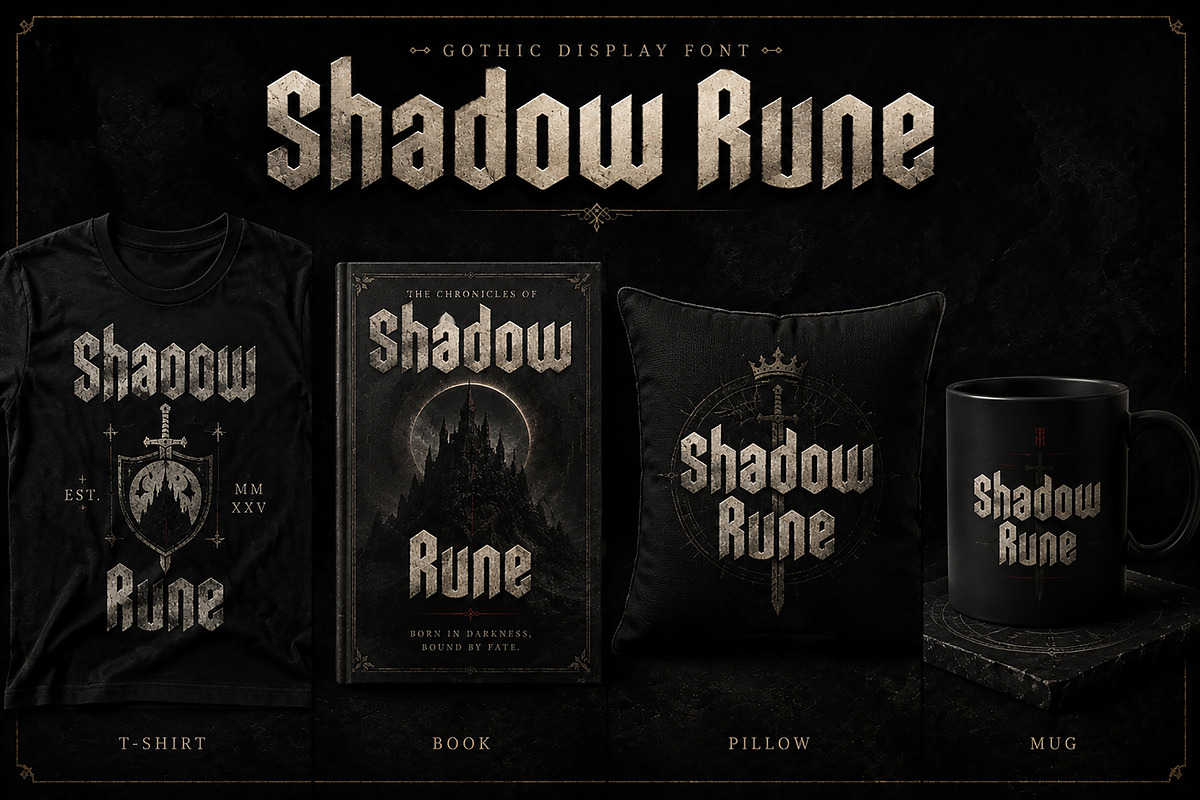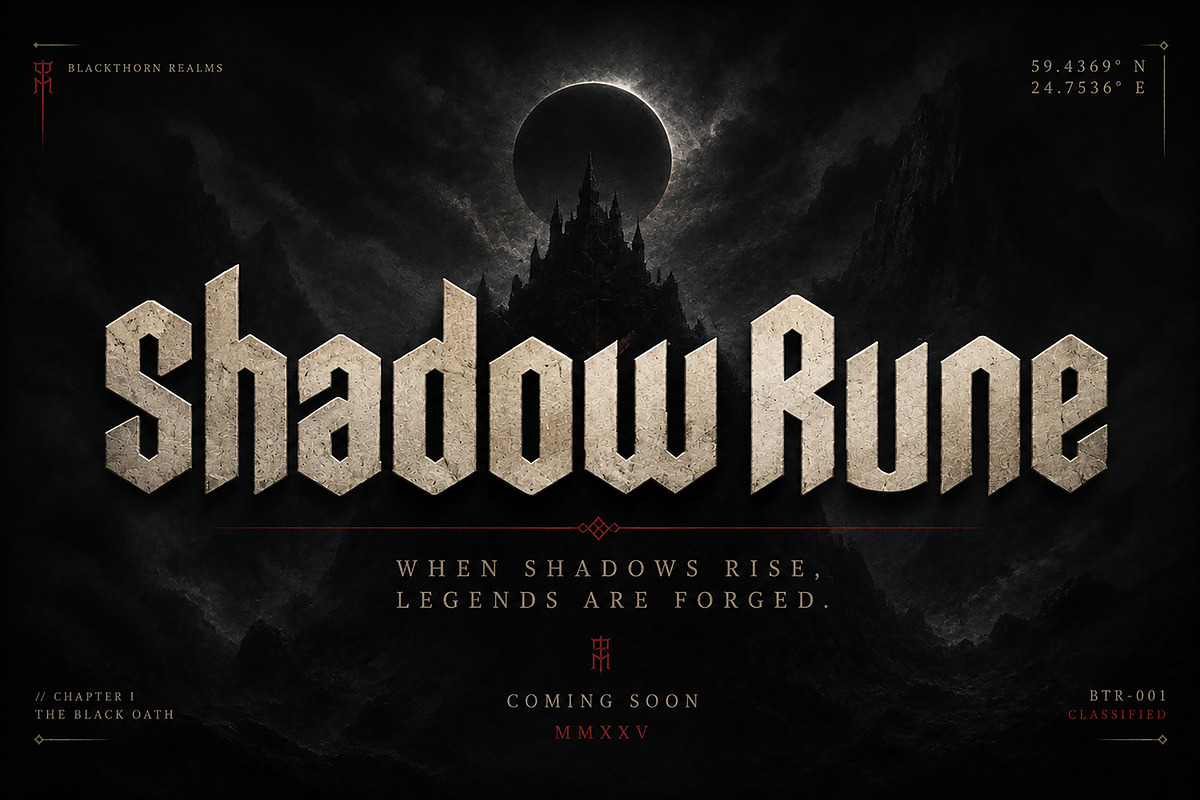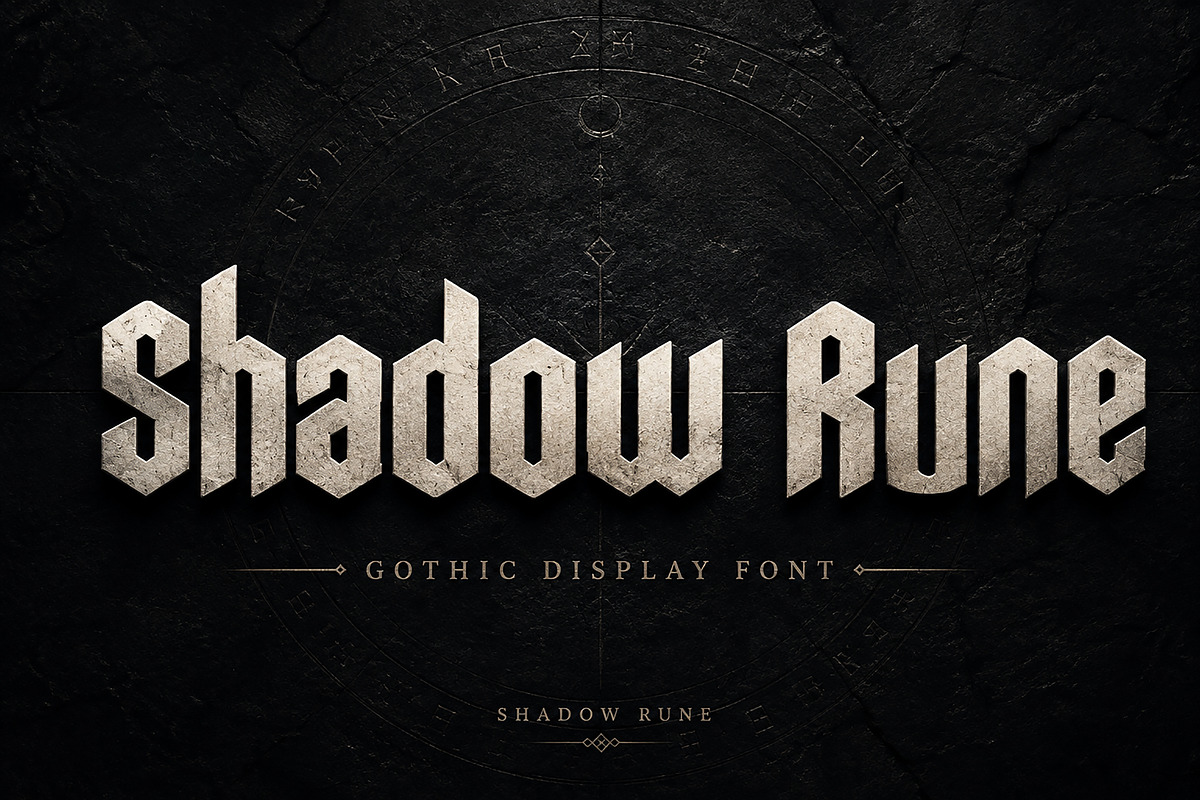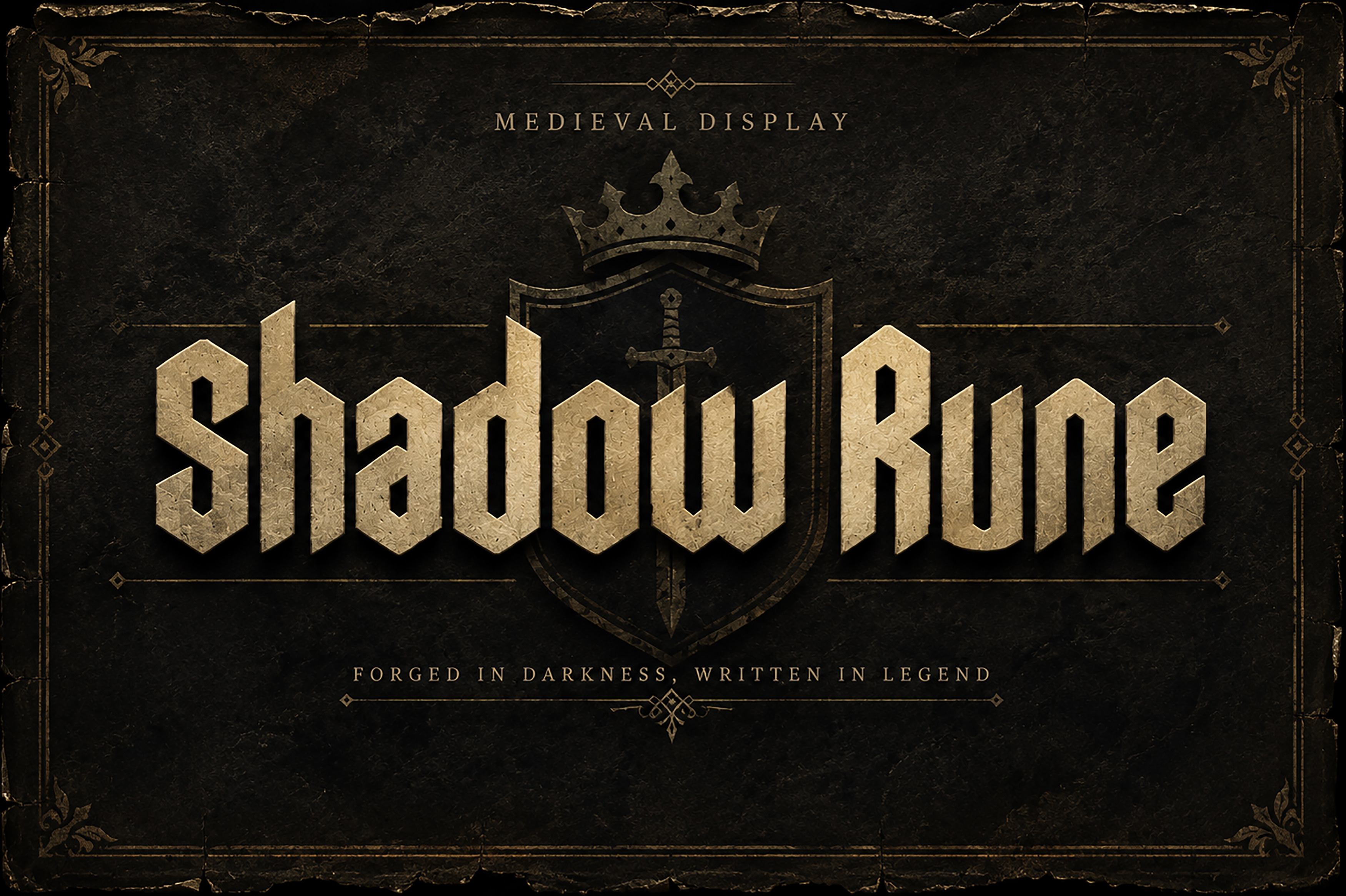
Shadow Rune —Gothic Blackletter Font
Shadow Rune — Gothic Blackletter Display Font
Shadow Rune is a bold and atmospheric gothic display font inspired by medieval legends, ancient runes, dark fantasy, and powerful blackletter typography. Its sharp angular forms and heavy visual presence make it perfect for designs that need a mysterious, dramatic, and unforgettable look.
Designed to stand out at large sizes, Shadow Rune works especially well for titles, logos, branding, posters, album artwork, merchandise, book covers, gaming graphics, and other dark-themed creative projects.
Gothic & medieval branding
Dark fantasy projects
Logo & title design
Movie & game titles
Posters & promotional artwork
T-shirt & merchandise designs
Book & album covers
Tattoo-inspired graphics
Labels & packaging
Horror & mysterious themed designs
Style: Gothic / Blackletter / Medieval / Dark Fantasy
Shadow Rune is built for designers who want a strong medieval atmosphere with a dark, mysterious, and distinctive visual character.
Bring your titles, logos, merchandise, and fantasy artwork to life with Shadow Rune.